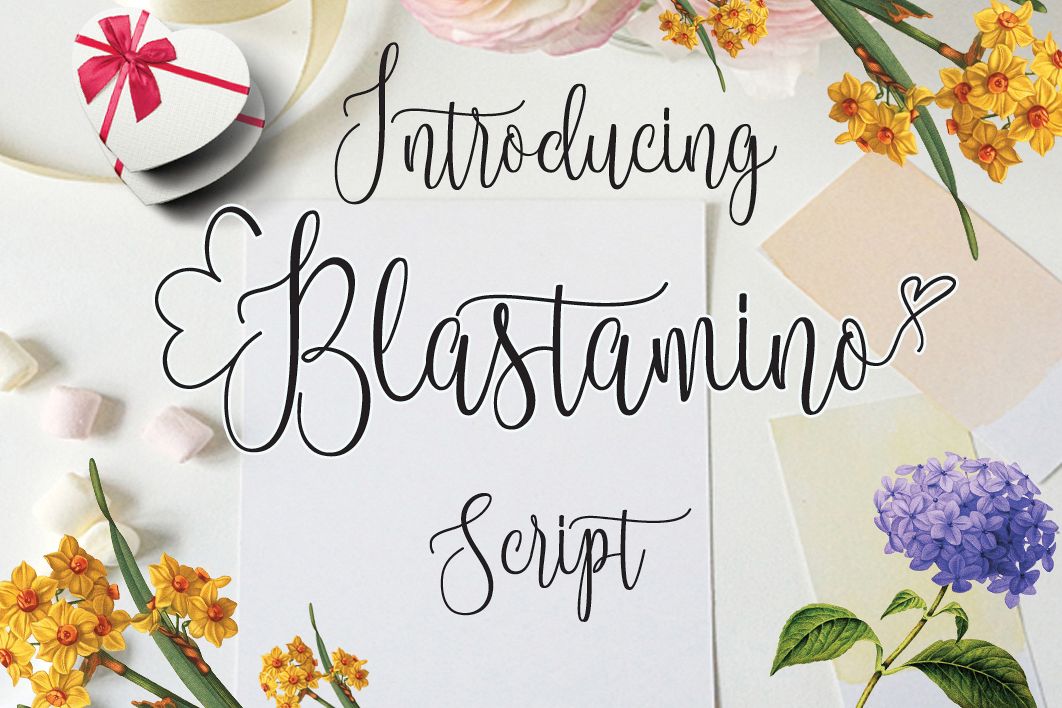
Blastamino
Blastamino is a font bold, so, brush script that is beautiful and unique, it is a model of modern calligraphy typefaces, in combination with a calligraphy writing style.
The Features of this fonts is;
* Contextual Alternates
* Standart ligatures
* Discretionary ligatures
* Stylistic Alternates
* Stylistic sets